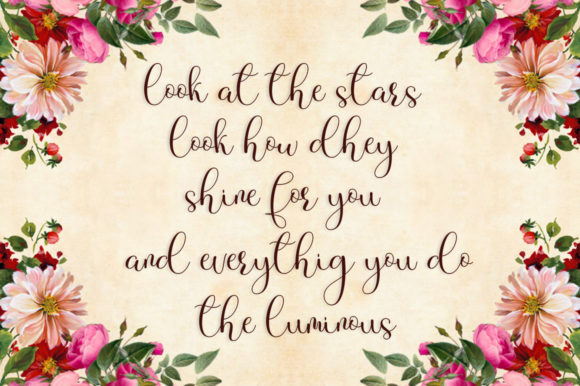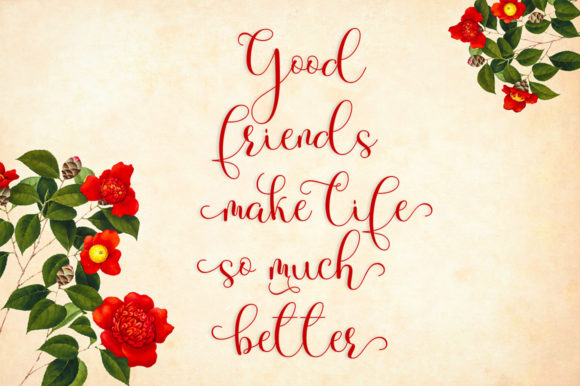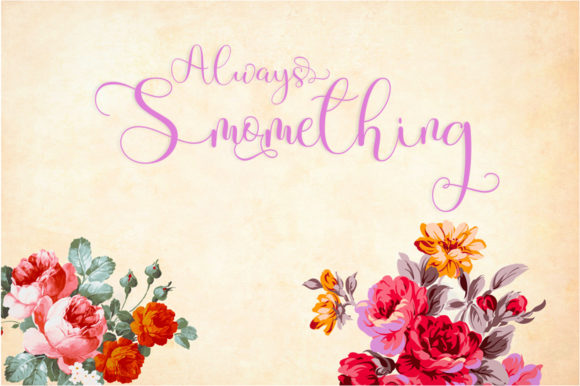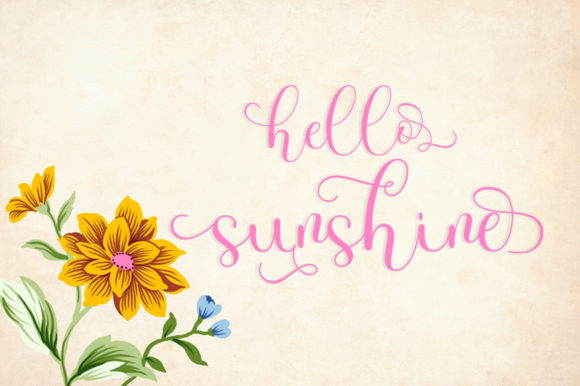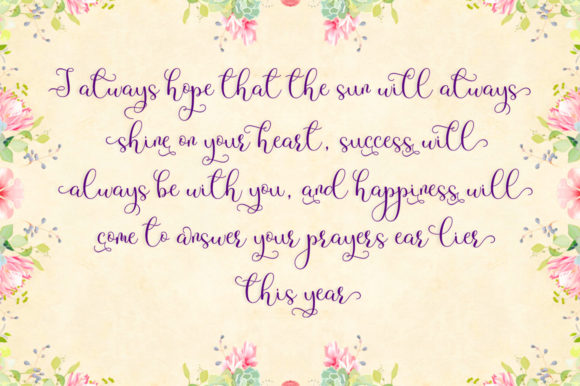
Mellysa Font
The Mellysa is a modern calligraphy font. Its characters are dancing along the baseline and are perfect for adding an elegant touch to your designs.
It can be used for logos, wedding invitations, headings, t-shirts, letterheads, signage, labels, news, posters, badges, and much more!